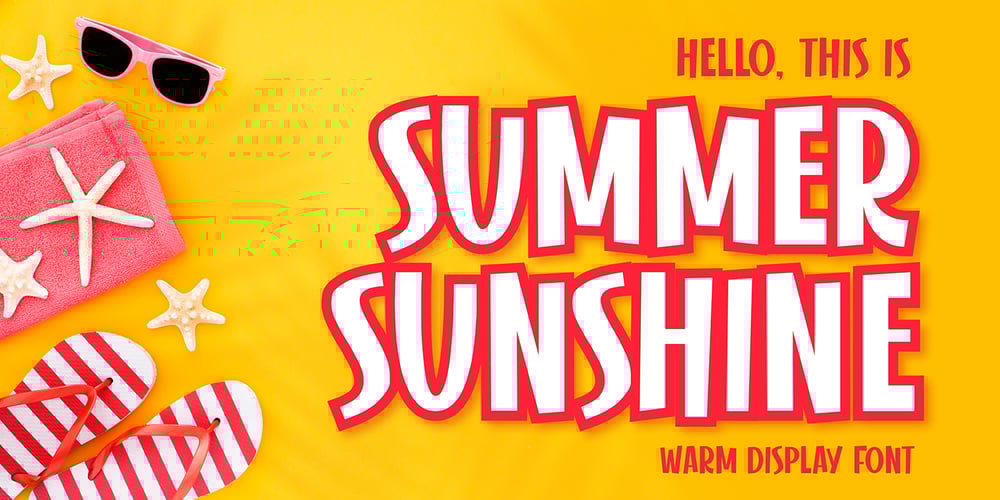
Summer Sunshine Font Family was designed by Toni Dzulham and published by Figuree Studio. Summer Sunshine contains 1 styles and family package options. This time for Summer Sunshine!Made with love and joy, inspired by the warmth of summer. Comic look, so it will make your design more beautiful, cute, fun, and colorful. Features: Character Set A-Z (All-caps) Numerals and Punctuation (OpenType Standard) Accents (Multilingual characters) PUA Encode I hope you can enjoy the font :)RegardsFiguree Studio